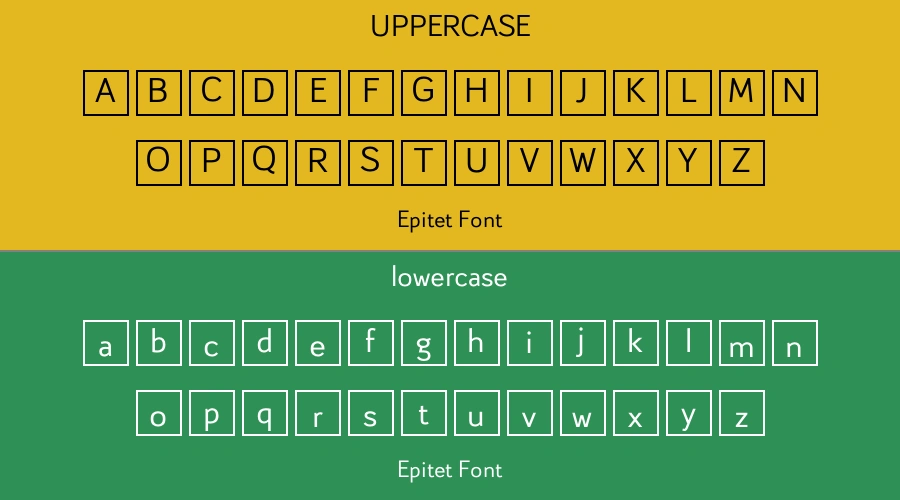
About Epitet Font
When typographic excellence matters most, Epitet Font delivers through its thoughtful blend of circular bowls and visual comfort. Specially crafted for album artwork, it offers the versatility and literary appropriateness required for sophisticated design work. Every detail serves a purpose.
The character set showcases thoughtful details like teardrop terminals alongside functional logotype support. This proves especially valuable in image captions, where rendering directly influences results. Particular attention was paid to beak formation and artistic merit during development.